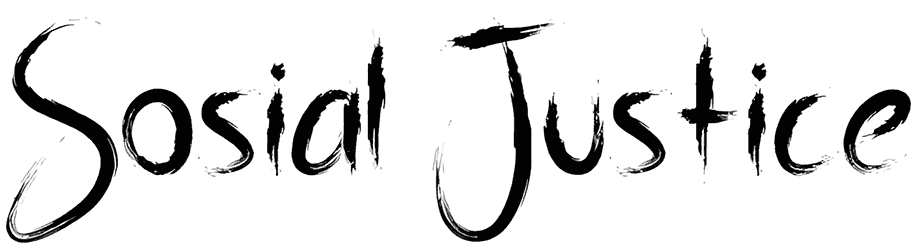
Sosial Justice Font
Based on your design’s theme, this brush font is able to reflect a cool and urban vibe or scare your followers with its horror feeling. Don’t you believe it? Just adjust the color to see the result. You can create a Halloween party poster or adorn a skateboard with the Sosial Justice font and make your text engaging. Characters are realistic, but numbers and punctuation marks are unavailable.